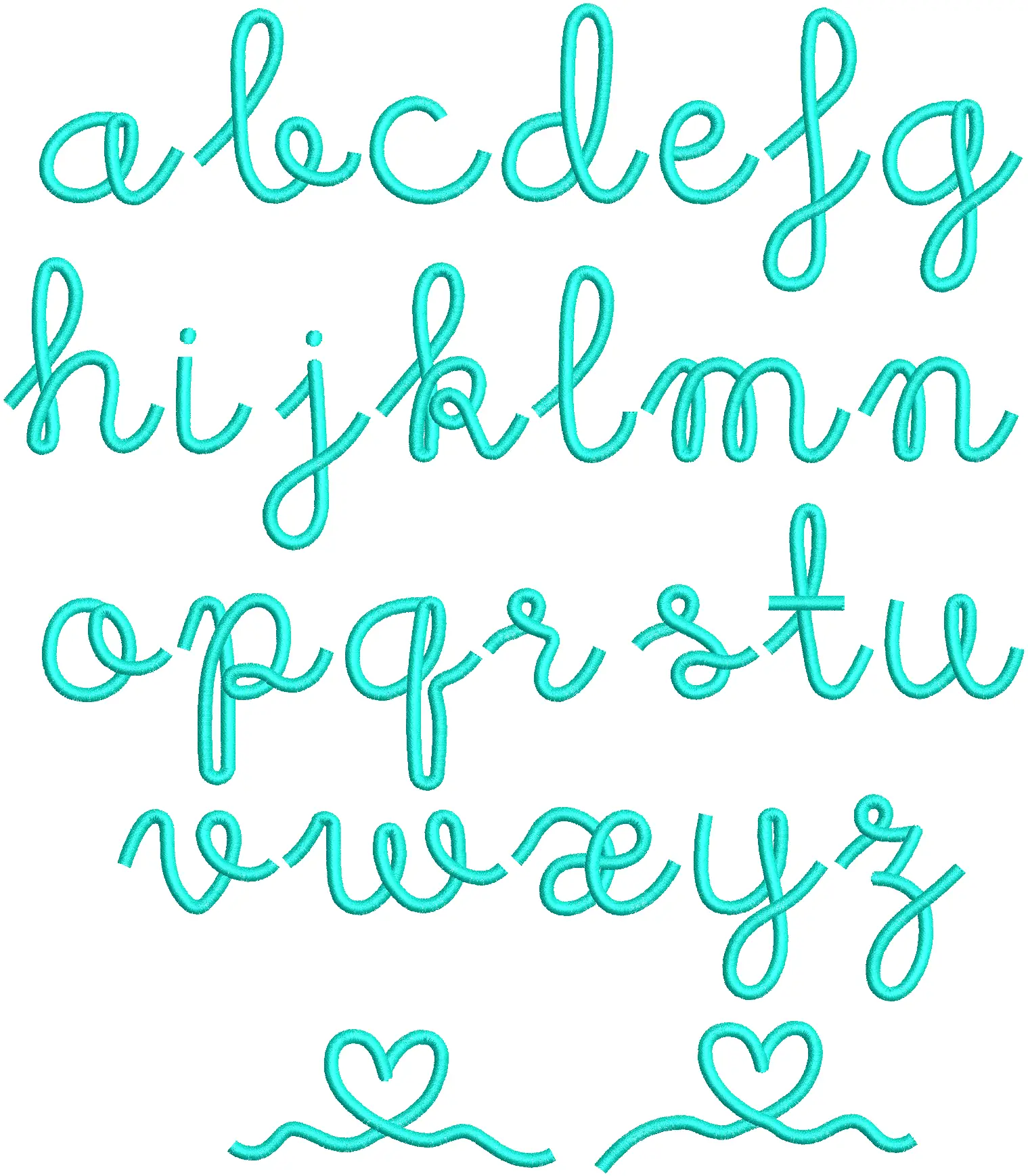
Candice Heart Script Embroidery Font
Create clean and stylish lettering projects with this Candice Heart Script Embroidery Font. This Candice heart script monogram alphabet is designed for machine embroidery and is perfect for personalized Valentine Day initials, wedding names, love monograms, gifts, apparel, home décor, and custom sewing projects.
Perfect For
- Satin Stitch Monograms
- Personalized shirts
- Applique Sweatshirts and jackets
- Tote bags
- Baby and kids items
- Pillow covers
- Blankets
- Custom gifts
- Initials and name projects
- Heart Boutique-style sewing projects
Font Features
- Heart shaped monogram machine embroidery font
- Alphabet lettering sewing pattern
- Great for initials, names, and custom text
- Clean stitched texture for a polished monogram look